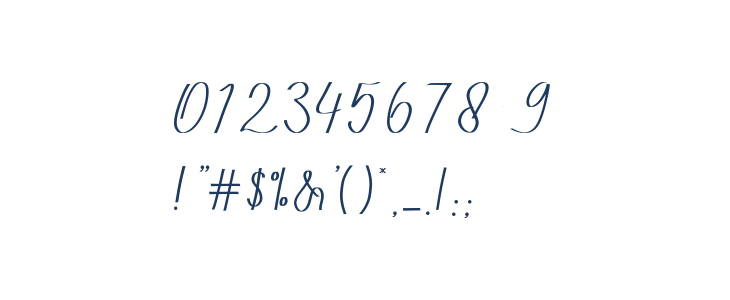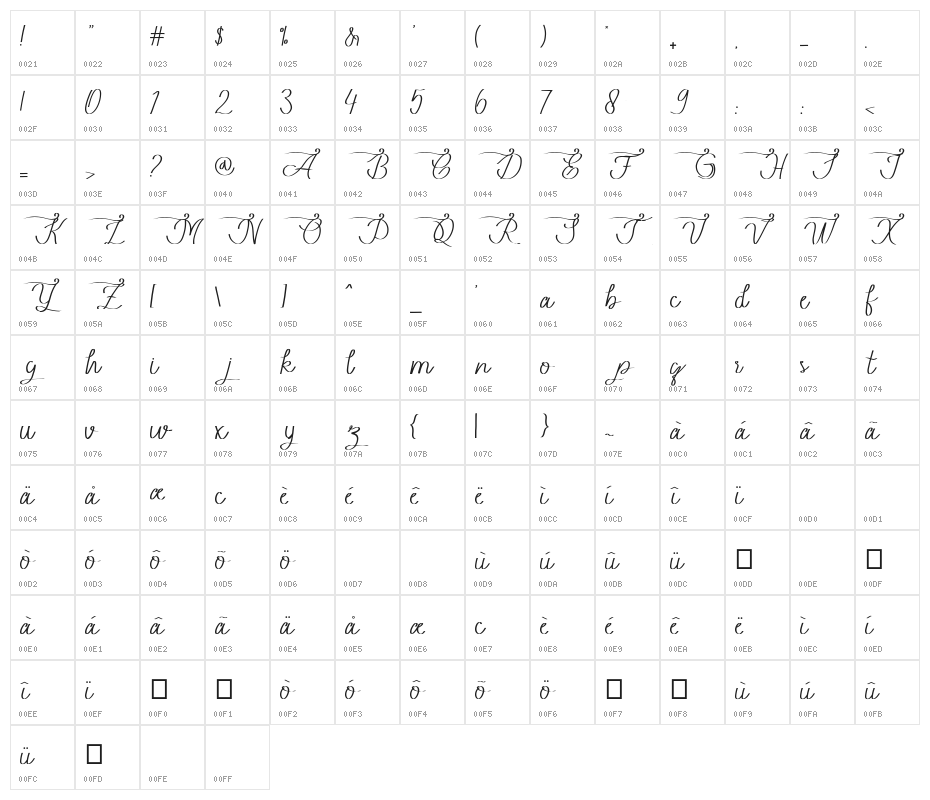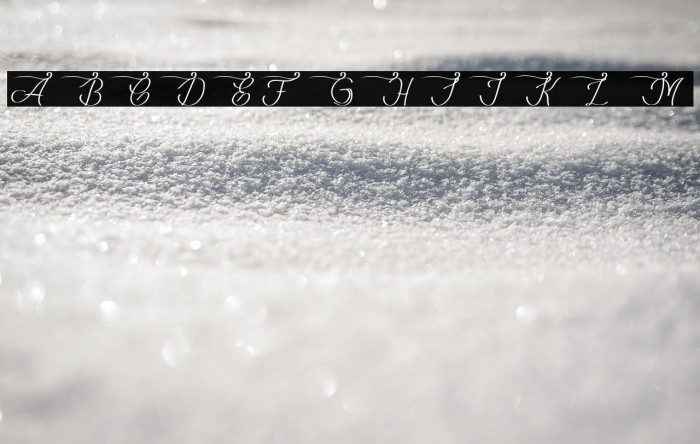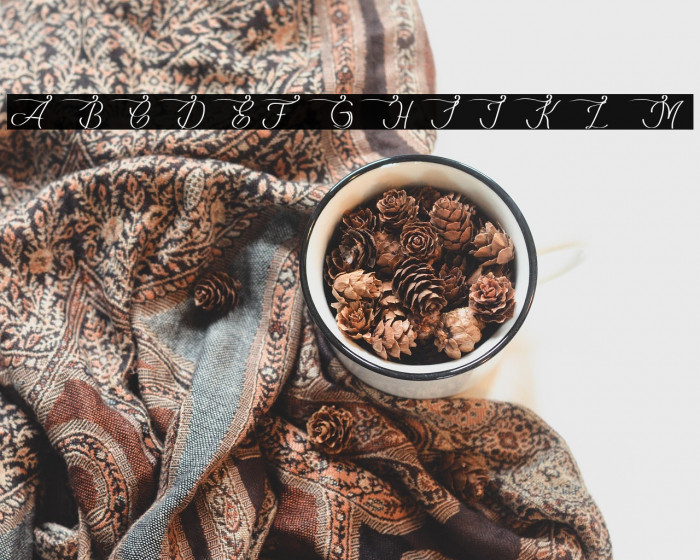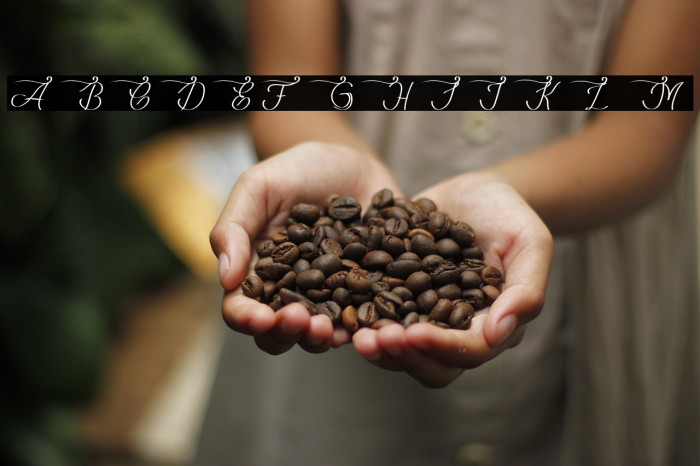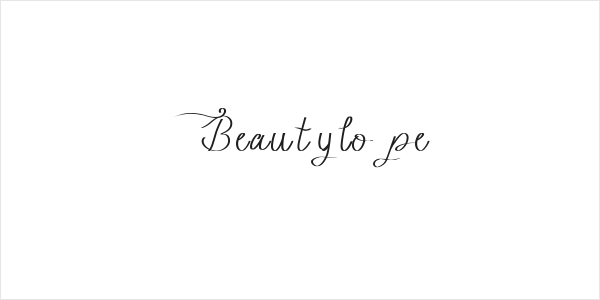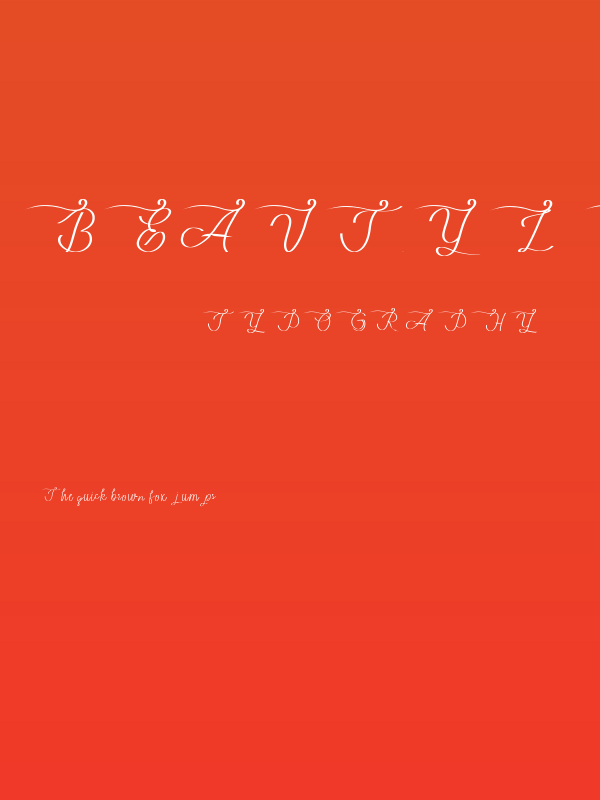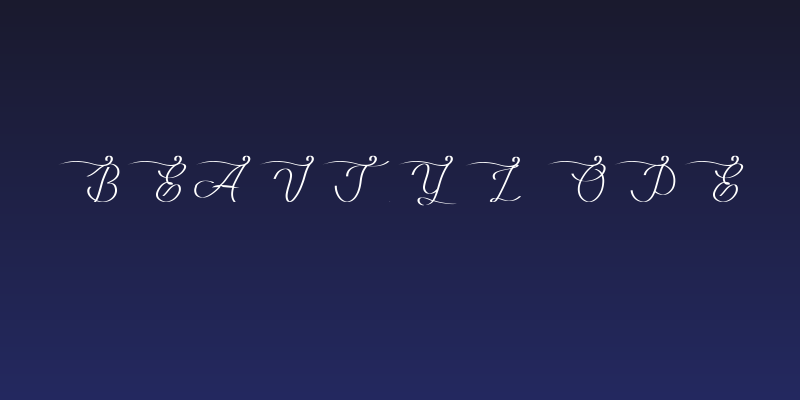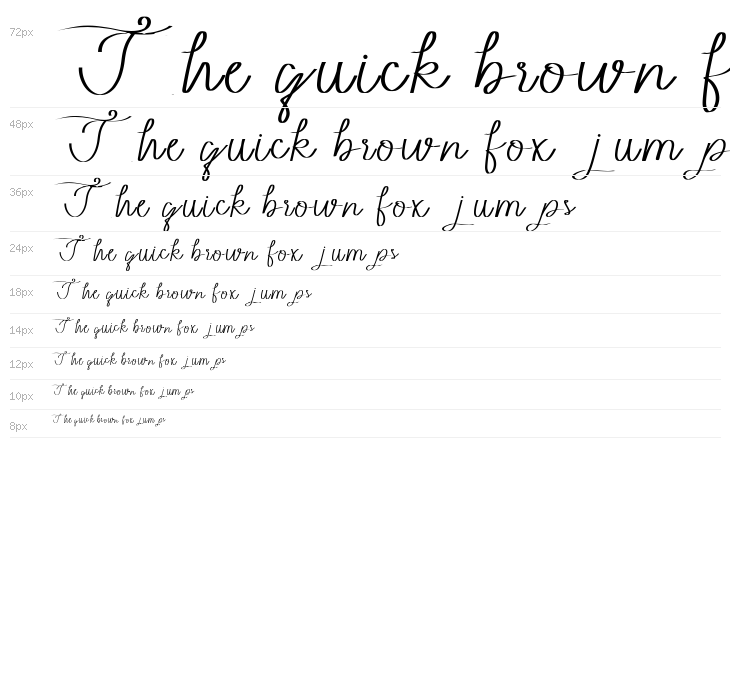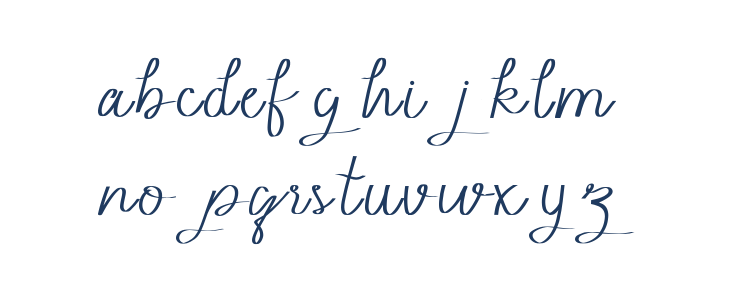
Beautylope Font
Beautylope Description
This elegant script font features a flowing, cursive style with intricate loops and swashes, giving it a sophisticated and artistic appearance. The uppercase letters are adorned with decorative flourishes, while the lowercase letters maintain a smooth, connected form that enhances readability. The numerals and special characters are designed to match the overall aesthetic, providing a cohesive look. This font exudes a sense of grace and refinement, making it ideal for projects that require a touch of elegance.
| Overall Style | Elegant, Artistic |
| Proposed Projects | Ideal for wedding invitations, greeting cards, branding, and elegant packaging. |